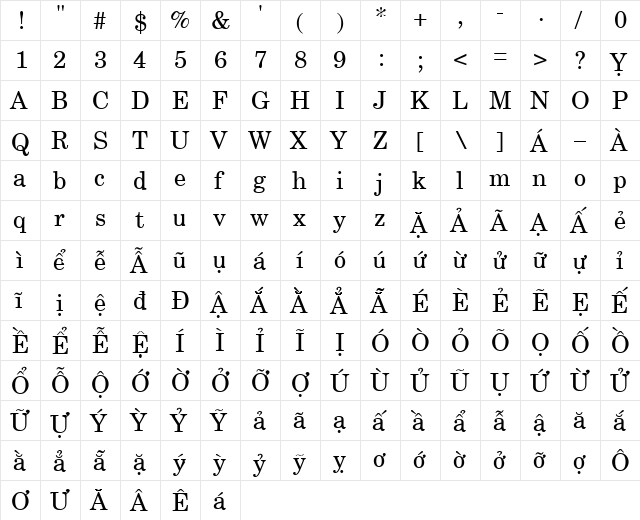
VNI-DOS Sample Font Normal
Design Context for VNI-DOS Sample Font Typeface
VNI-DOS Sample Font is a composed and adaptable typeface that performs quietly and consistently across a wide range of design contexts.